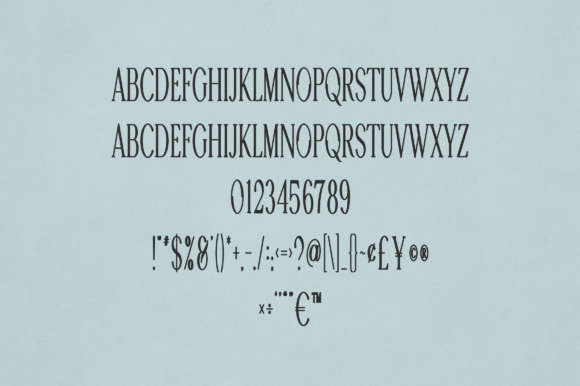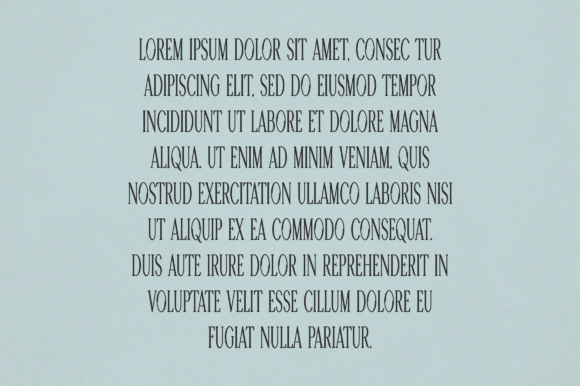
Hazel Font: Elevate Your Typography with Elegance and Versatility
In the world of typography, a font can make or break the visual appeal of a design. For designers and crafters looking to add a touch of sophistication and uniqueness to their projects, Hazel Font is an excellent choice. This elegant and versatile serif font is designed to make your typography truly stand out, whether you’re working on a logo, branding, headline, or plain text.
The Characteristics of Hazel Font
Hazel Font boasts a classic serif design with a modern twist. Its elegant lines and curves make it perfect for a wide range of applications, from traditional branding projects to modern digital designs. The font’s versatility is one of its most significant advantages, allowing it to adapt seamlessly to different contexts and styles.
Perfect for Branding and Design Projects
When it comes to branding, the right font can help establish a strong visual identity. Hazel Font is ideal for branding projects, as it exudes a sense of sophistication and refinement. Whether you’re designing a logo, business card, or product packaging, this font will help you create a cohesive and stylish look. Additionally, Hazel Font can be used for home-ware designs, adding a touch of elegance to any product or packaging.
Magazine Headers and Headlines
Hazel Font is also perfect for magazine headers and headlines. Its classic serif design makes it easy to read, even in large formats. The font’s elegance and sophistication will add a touch of luxury to any magazine or publication, making it perfect for high-end brands or lifestyle publications.
Stylish Text Overlay for Background Images
One of the most significant advantages of Hazel Font is its ability to work well as a stylish text overlay for background images. Whether you’re designing a social media post, website header, or blog post, Hazel Font will add a touch of sophistication and elegance to any design. The font’s versatility makes it easy to pair with different background images, ensuring that your text always stands out.
Why Choose Hazel Font?
So, why choose Hazel Font over other fonts on the market? Here are just a few reasons:
• Elegance and sophistication: Hazel Font exudes a sense of refinement and luxury, making it perfect for high-end brands or designs.
• Versatility: This font can be used for a wide range of applications, from branding and packaging to magazine headers and text overlays.
• Easy to read: Hazel Font’s classic serif design makes it easy to read, even in large formats or small sizes.
• Unique and distinctive: Hazel Font’s elegant lines and curves make it stand out from other fonts on the market, ensuring that your designs will be truly unique.
Tips for Using Hazel Font
To get the most out of Hazel Font, here are a few tips:
• Pair with bold background images: Hazel Font works well with bold background images, making it perfect for designs that require a high level of contrast.
• Experiment with font sizes: Hazel Font’s versatility makes it easy to use in different font sizes, from large headlines to small body text.
• Use for branding consistency: Hazel Font is perfect for establishing a consistent visual brand identity, making it ideal for use across different marketing materials and designs.
In conclusion, Hazel Font is an elegant and versatile serif font that can elevate your typography to new heights. Its classic design, sophistication, and versatility make it perfect for a wide range of applications, from branding and packaging to magazine headers and text overlays. Whether you’re a designer or crafter, Hazel Font is an excellent choice for anyone looking to add a touch of elegance and refinement to their designs.